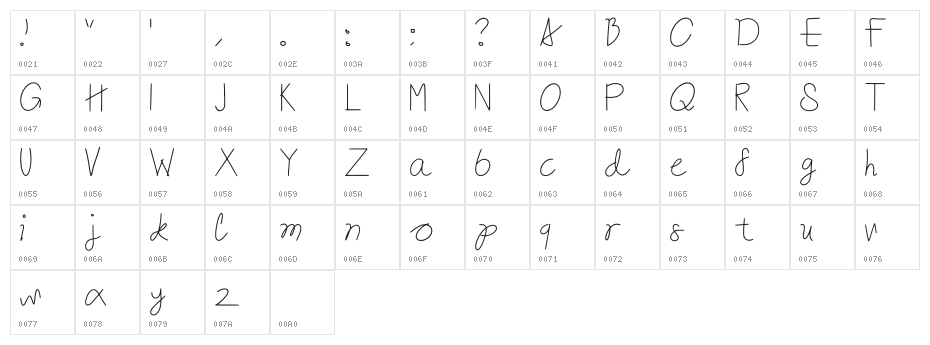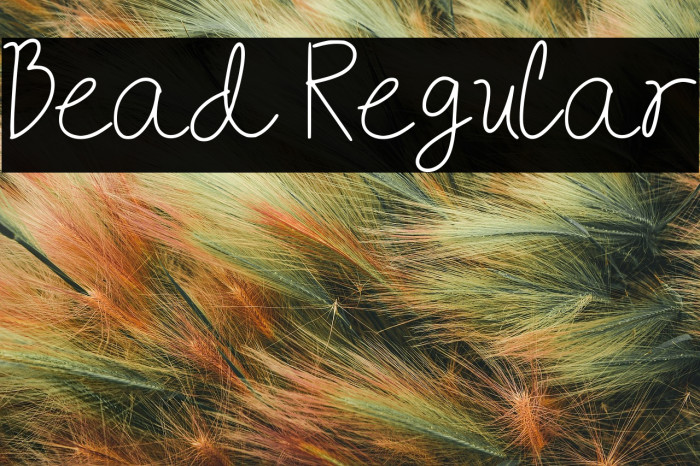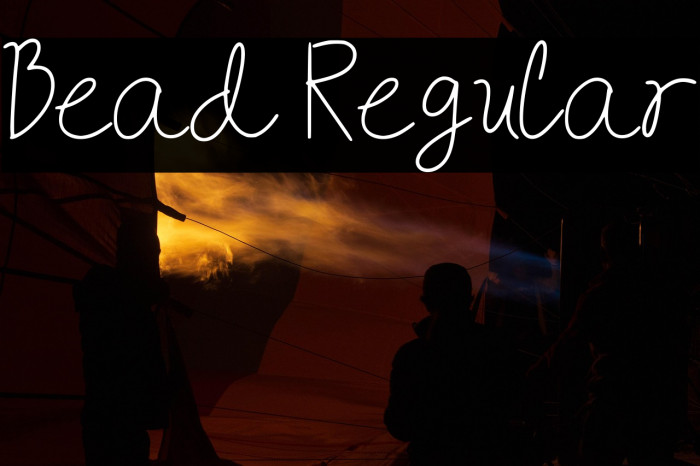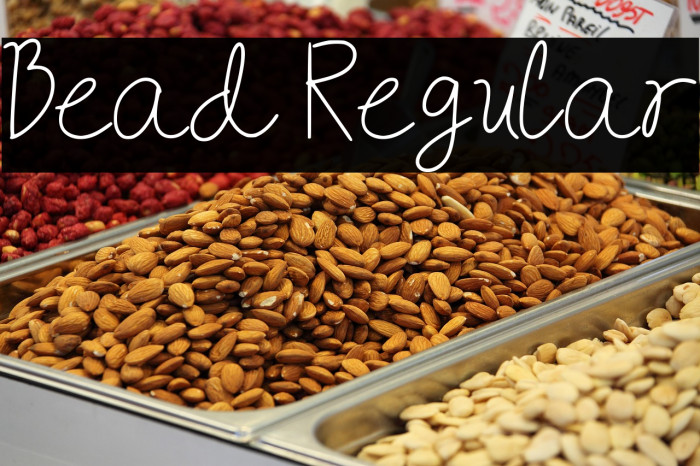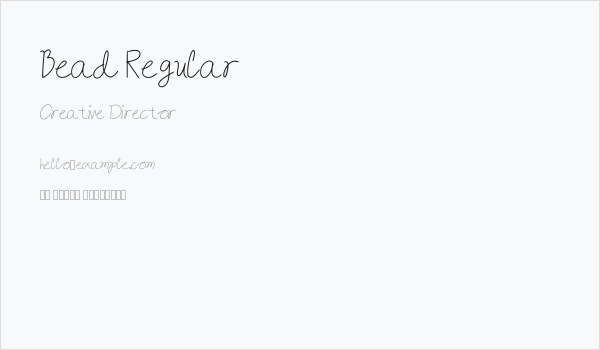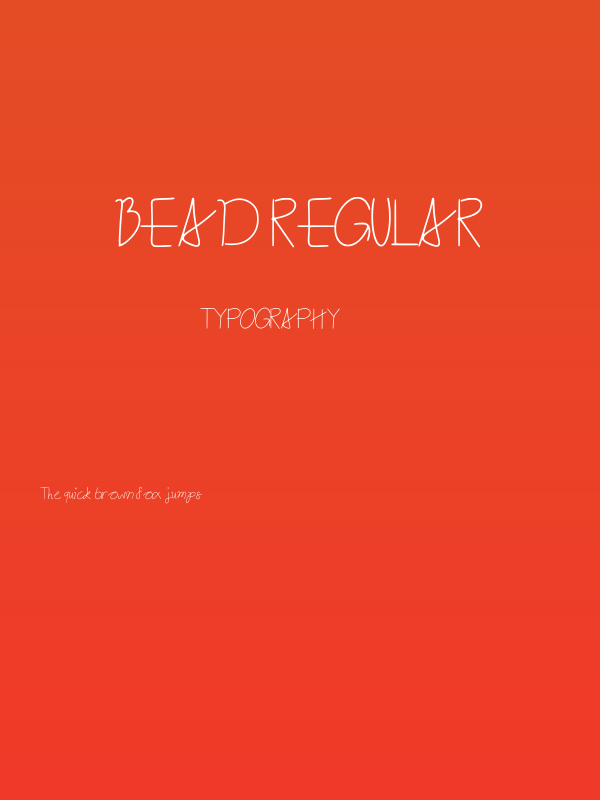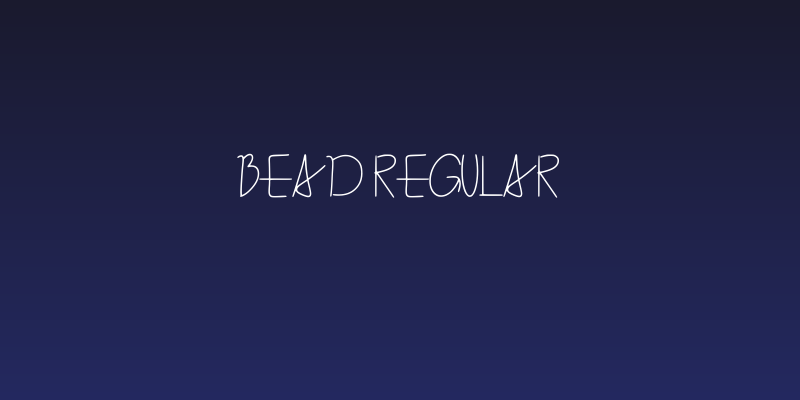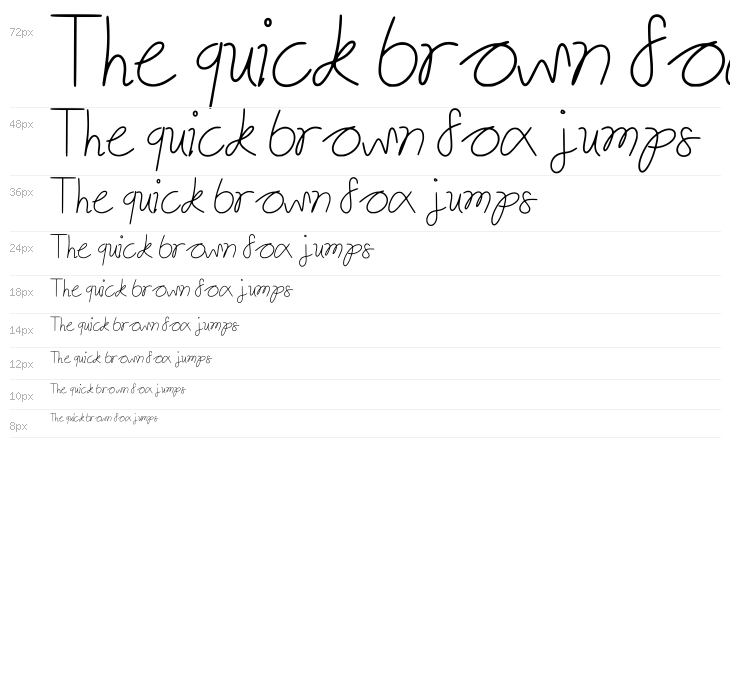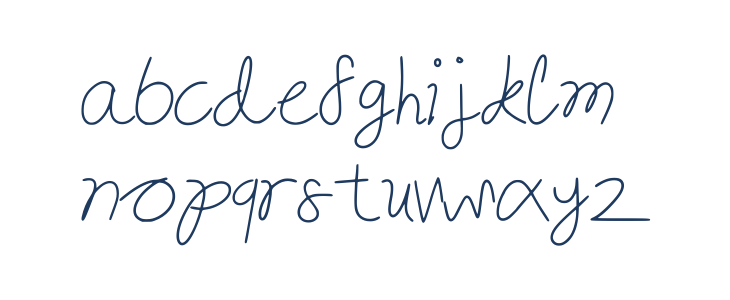
Bead Regular Font
Bead Regular Description
This font features a playful and whimsical handwritten style, characterized by its thin, flowing lines and slightly irregular shapes. The uppercase letters are tall and slender, with a slight slant that adds to the casual feel. Lowercase letters maintain a consistent height, with some letters like 'g' and 'j' having distinctive loops. The numbers are simple and match the overall style, while special characters are creatively integrated, maintaining the font's unique charm. This font exudes a sense of creativity and informality, making it ideal for projects that require a personal touch.
| Overall Style | Casual, Whimsical |
| Use Case | Headlines, Invitations, Personal Branding |
| Proposed Projects | Ideal for greeting cards, invitations, personal branding, and creative projects that require a casual, handwritten feel. |